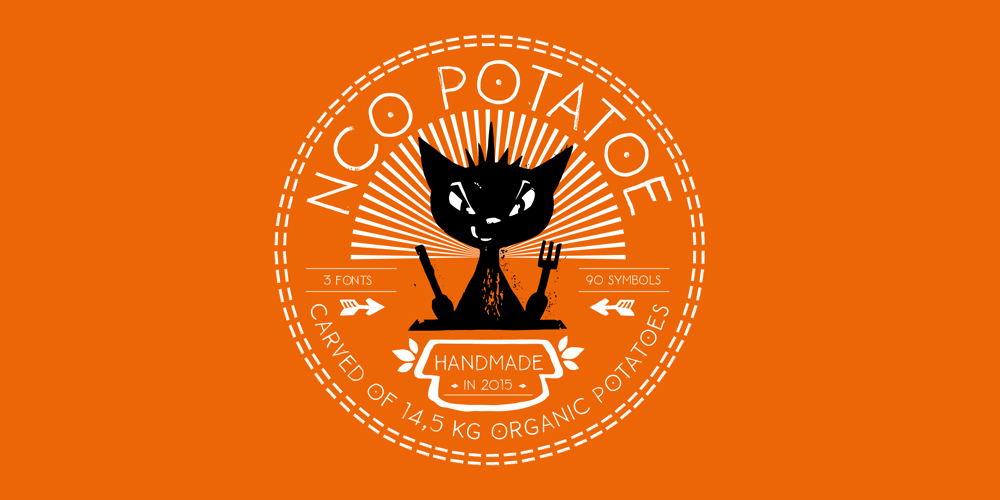
NCO Potatoe Font Family was designed by Lars Cellini, HP Becker and published by New Cat Orange. NCO Potatoe contains 4 styles and family package options. There is a very simple reason why the name of this font includes a potato. Or potatoe, if you prefer. It was carefully carved out of 14,5 kg of potatoes. Or 32.0 lb of potatos. Every single letter, every digit and every symbol. Manually, of course, and care-fully. It took a while. Longer than digitizing it, but since we love great quality, we put just as much care into this process.